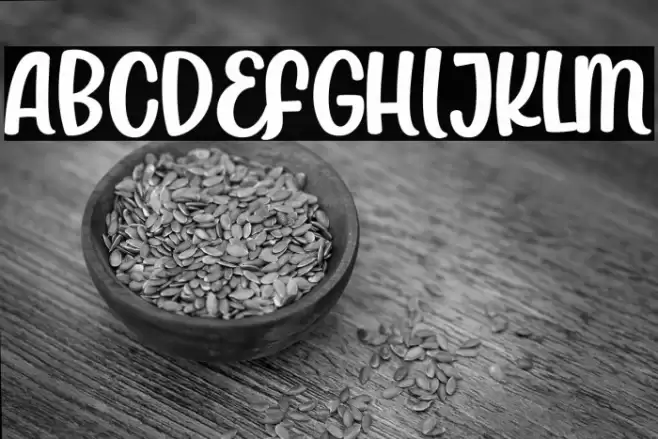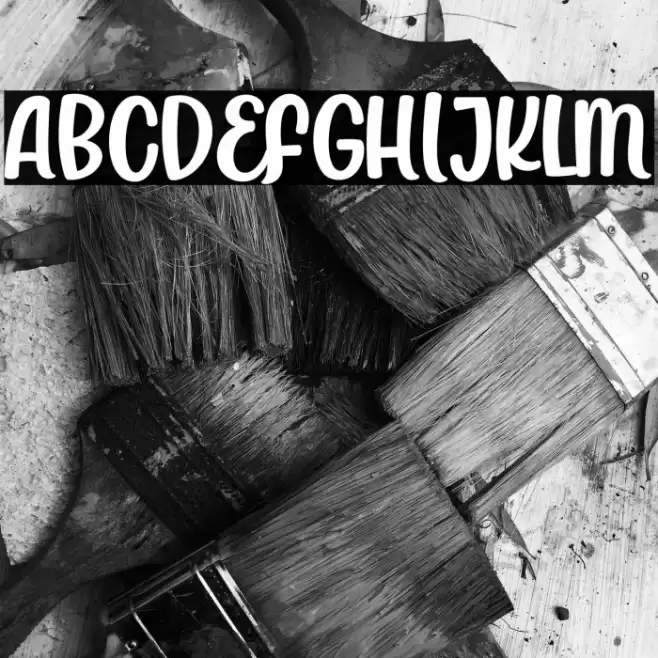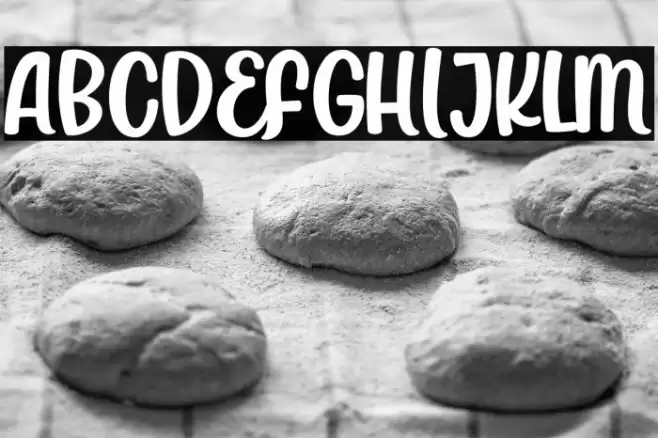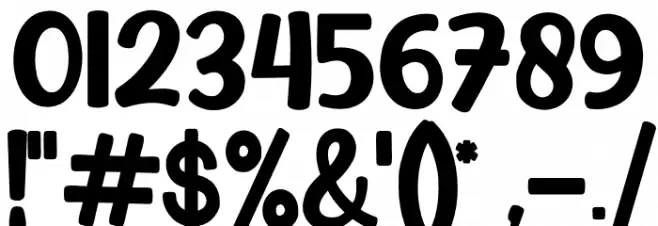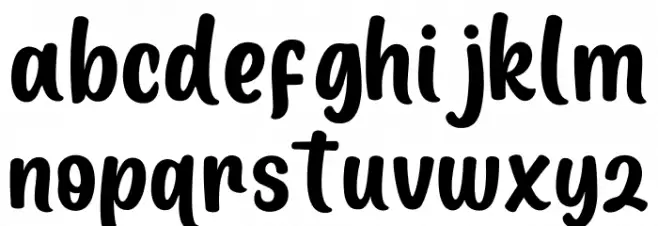
Mermaid Babies Font
Mermaid Babies Description
This playful and whimsical font features a bold, rounded style with a handwritten feel. The characters are slightly slanted, giving a sense of movement and energy. The uppercase letters are tall and prominent, while the lowercase letters maintain a consistent flow with smooth curves. Numbers and special characters are equally bold and maintain the playful aesthetic. The font's overall appearance is friendly and approachable, making it ideal for creative and informal projects.
A bold, playful font with a handwritten style and rounded characters from Cartoon fonts.
- Font: Mermaid Babies
- Proposed Projects: Ideal for children's books, playful branding, greeting cards, and creative posters.
- Overall Style: Playful
Mermaid Babies UPPERCASE
Mermaid Babies LOWERCASE
Mermaid Babies OTHER CHARS